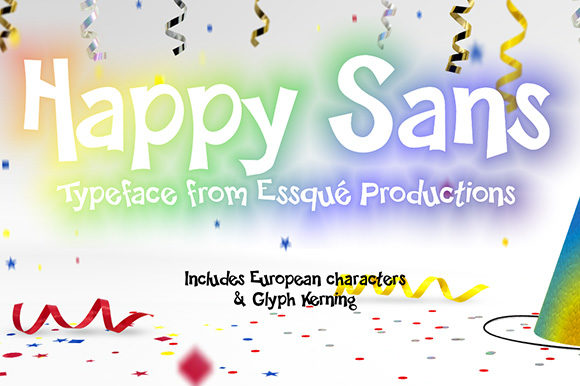
Discover the Delightful World of Happy Sans Font
The Happy Sans font has taken the design world by storm with its whimsical and playful charm. As a byproduct of its older sibling, Happy Serif, Happy Sans has carved out its own unique identity and gained immense popularity among designers and crafters. In this article, we’ll dive into the story behind Happy Sans, its features, and why it’s become a favorite among creative enthusiasts.
The Birth of Happy Sans
Happy Sans was created as a variant of the Happy Serif font. During the design process, the creator aimed to experiment with a sans-serif version, which eventually evolved into Happy Sans. This new font took on a life of its own, boasting a unique character that resonated with designers and crafters alike.
One of the standout features of Happy Sans is its thoughtful weight distribution and size ratios amongst the characters. This attention to detail gives the font a sense of normalcy, making it highly legible and versatile. The font’s whimsical nature is balanced with a touch of sophistication, making it suitable for a wide range of design projects.
The Rise to Popularity
Interestingly, Happy Sans gained more traction than its older sibling, Happy Serif. Designers and crafters fell in love with the font’s friendly and approachable demeanor, which added a touch of warmth to their designs. As a result, Happy Sans has become a go-to font for those seeking a playful yet professional look.
Why Designers and Crafters Love Happy Sans
So, what makes Happy Sans a favorite among designers and crafters? Here are a few reasons:
- Versatility: Happy Sans is suitable for a wide range of design projects, from digital media to print materials.
- Legibility: The font’s careful weight distribution and size ratios ensure that it’s easy to read, even at smaller sizes.
- Whimsy: Happy Sans adds a touch of playfulness to designs, making it perfect for projects that require a friendly tone.
- Uniqueness: Happy Sans has a distinct character that sets it apart from other sans-serif fonts.
Using Happy Sans in Design Projects
Happy Sans is an excellent choice for various design projects, including:
- Branding and logos: Happy Sans is perfect for creating friendly and approachable brand identities.
- Digital media: Use Happy Sans in social media graphics, blog posts, and website designs to add a touch of whimsy.
- Print materials: Happy Sans is suitable for business cards, brochures, and other print materials that require a playful yet professional look.
- Crafting and DIY projects: Happy Sans is a great choice for crafters who want to add a personal touch to their projects, such as handmade cards, scrapbooking, and more.
In conclusion, Happy Sans is a delightful font that has captured the hearts of designers and crafters worldwide. Its unique blend of whimsy and sophistication makes it an excellent choice for a wide range of design projects. Whether you’re a seasoned designer or a crafting enthusiast, Happy Sans is sure to bring a smile to your face and a touch of personality to your creations.